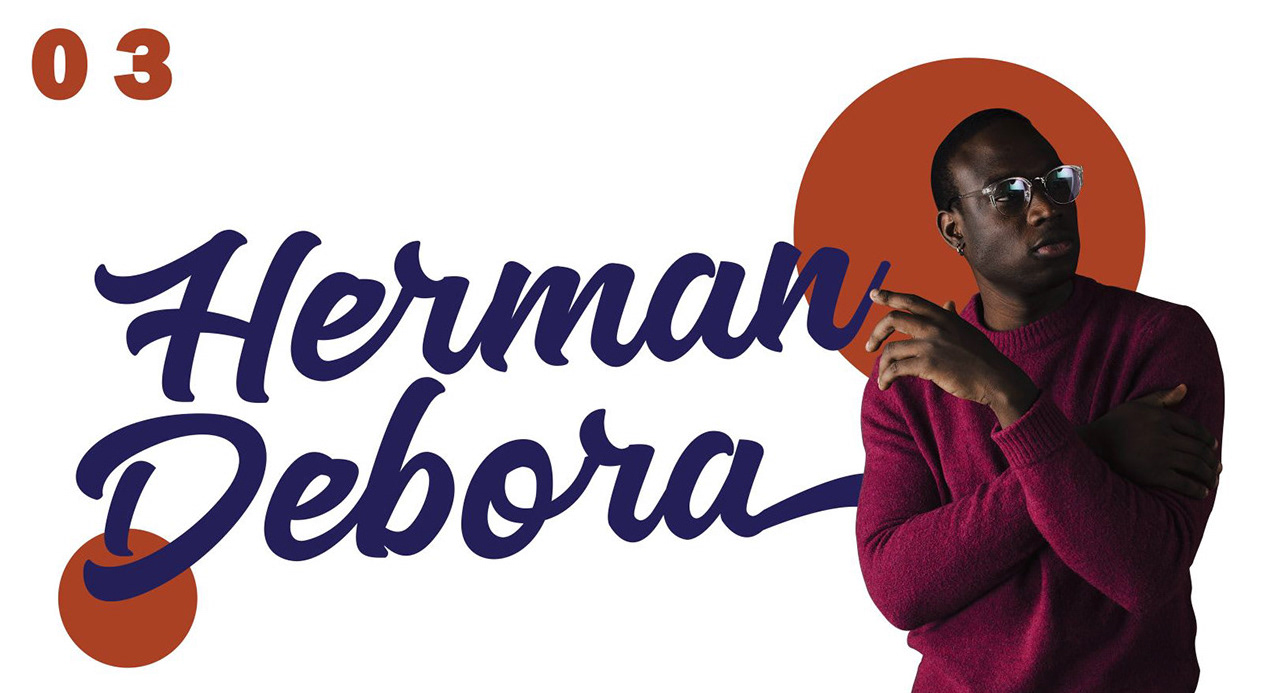
Authentic Studio [Faras Dina]
Or Faras Parkom. Langkat, Indonesia-based designer of the free rhythmic scriopt typeface Mainmia (2017), Ottoman (2018, sans and script), Korkila Script (2018) and Maldiva Script (2018). Typefaces from 2019: Adellion, Satalia Signature, Carlanta (free), Martuah (signage and packaging script), Gradiola (monoline script), Amchiela (signage script), Gardhen Script.
Typefaces from 2020: Parchom, Barika (a creamy script), Cardanaya (blackletter), Mainsan, Berkahi Blackletter, Jandu Signature, Baliga Blackletter, Malanaya Script.
Typefaces from 2021: Admara, Balonia, Bastin Cutie, Bulgani (blackletter), Christmas, Clanton Ellie, Damage, Farmhome, Galexya Blackletter, Haluga, Happy Christmas, Hello Santa, Juliette, Kalinda (a groovy poster typeface), Kaliya, Kamore, Karnia, New Bulgani, Spooky Hallowen, The Quest, Valentine Day.